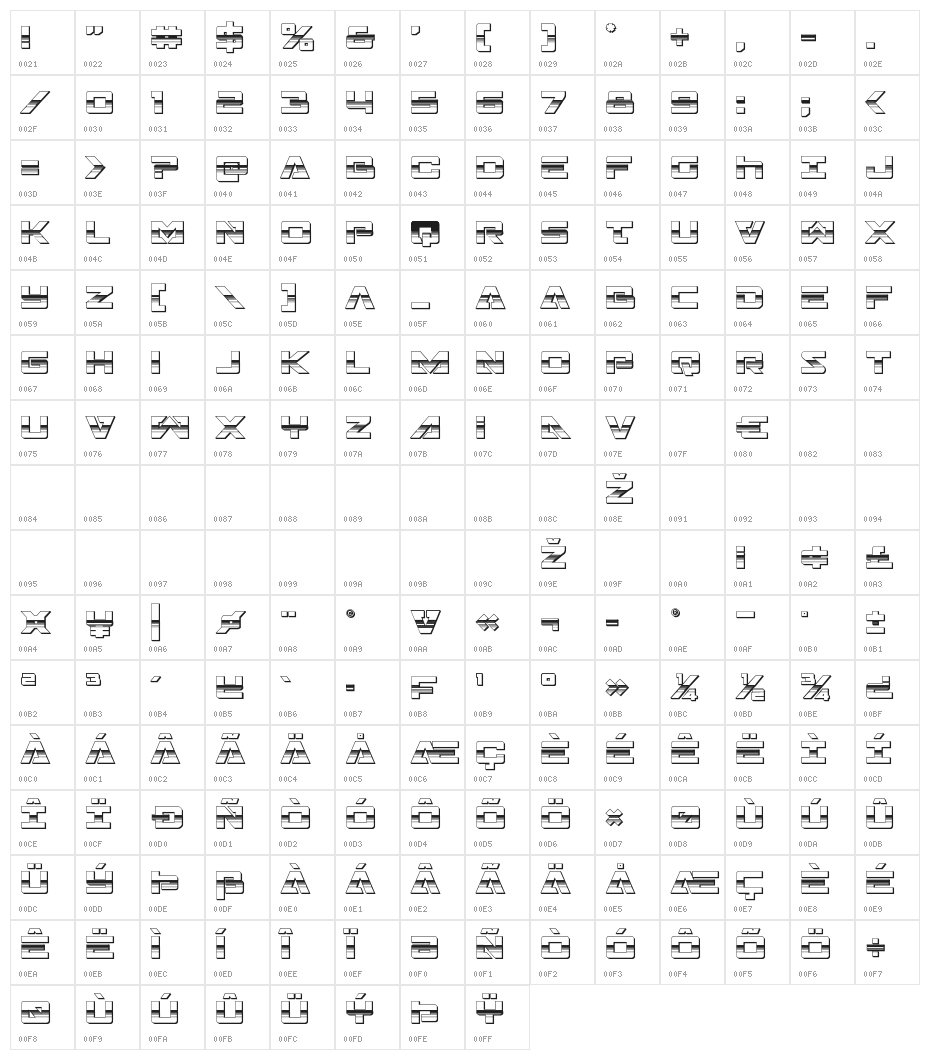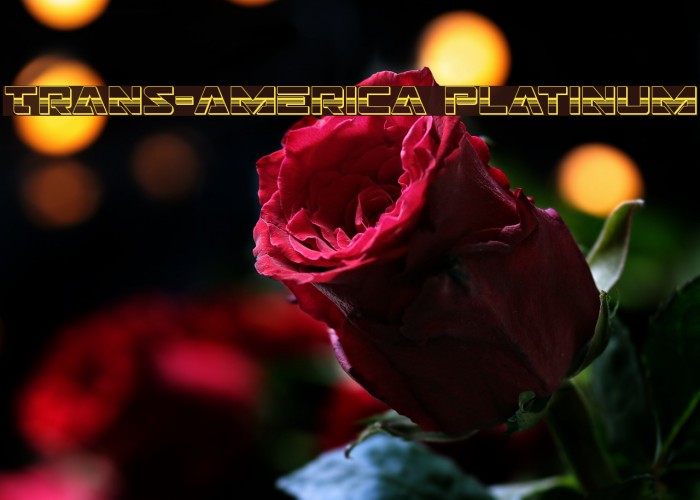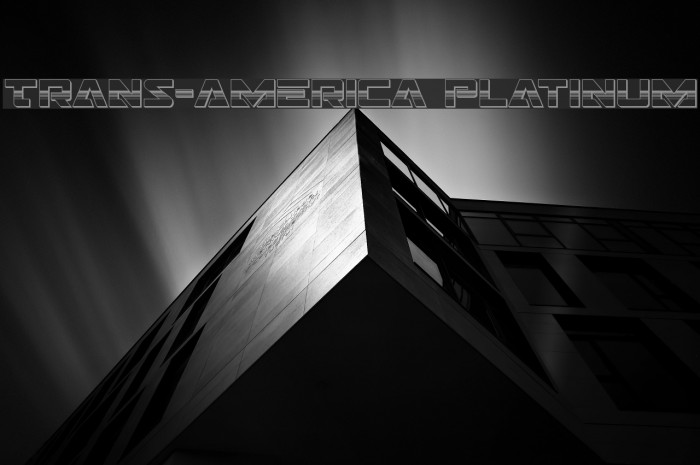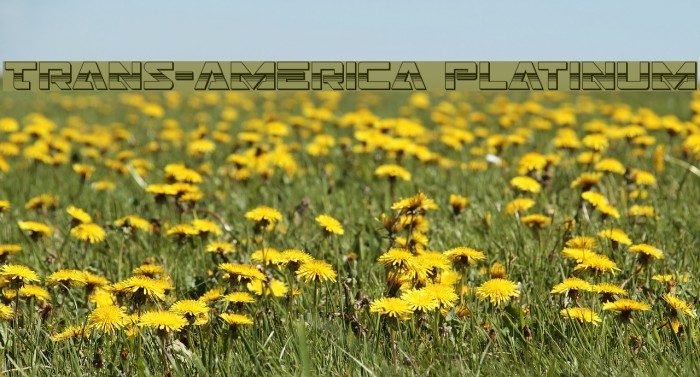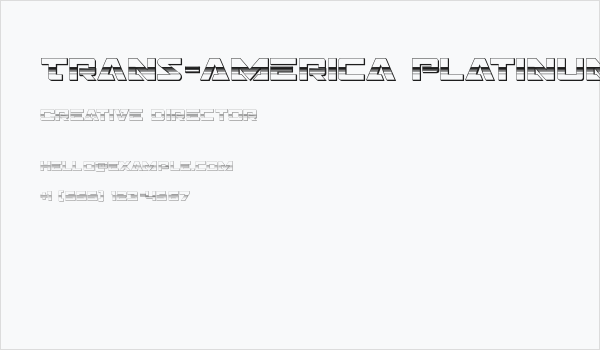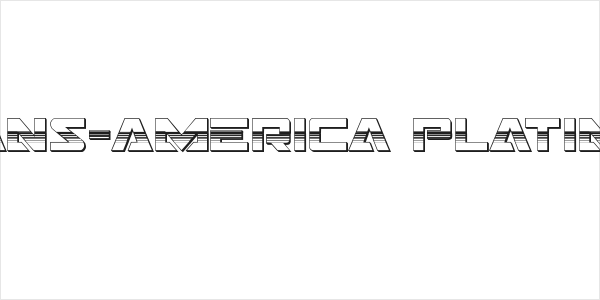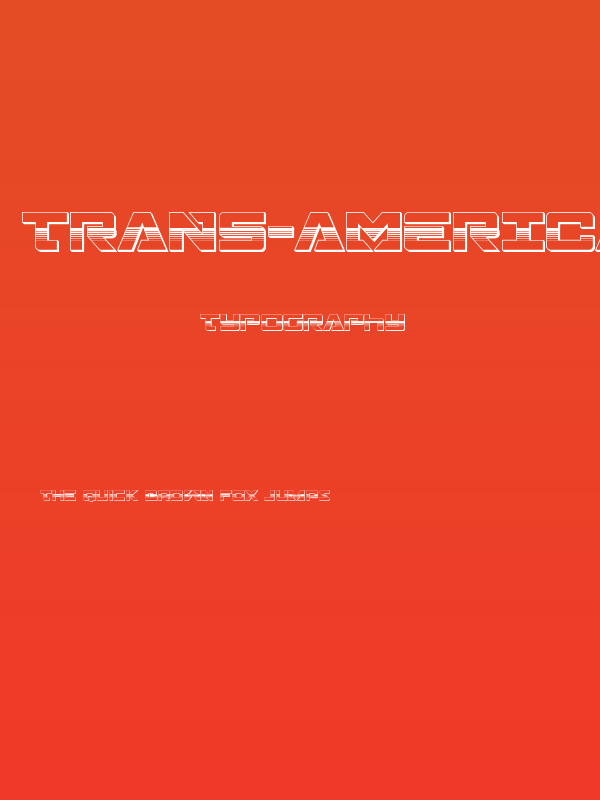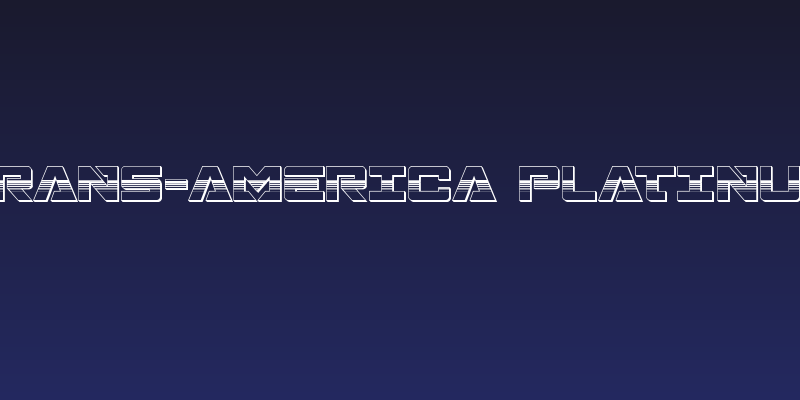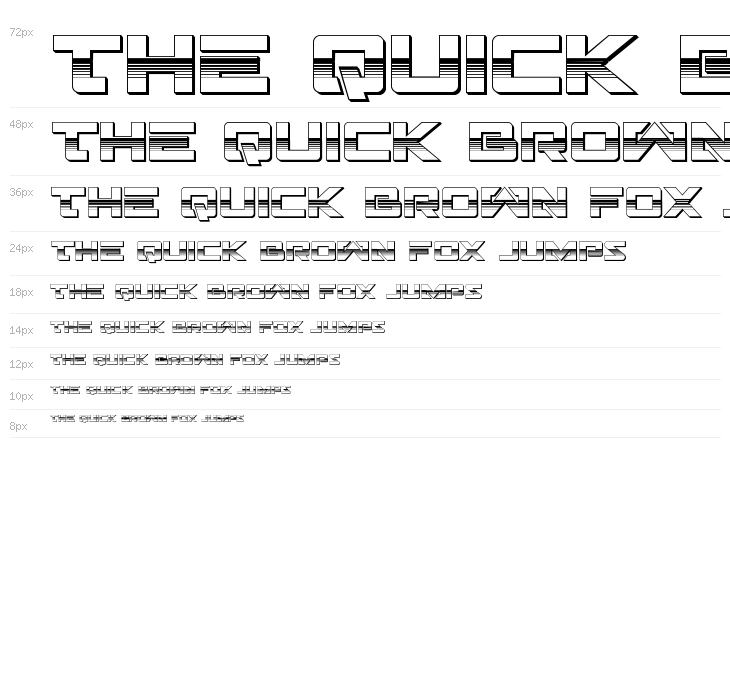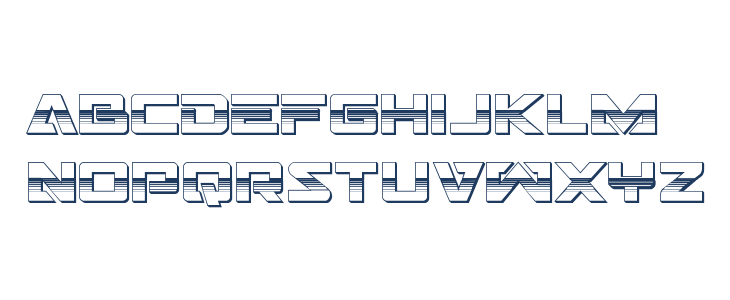
Trans-America Platinum Font
Trans-America Platinum Description
This font features a bold and futuristic design with a distinct three-dimensional effect. Each character is constructed with parallel lines that create a sense of depth and movement. The geometric shapes are sharp and angular, giving it a modern and edgy appearance. The uppercase and lowercase letters maintain a consistent style, while the numerals and special characters complement the overall aesthetic. The font's unique structure makes it stand out, ideal for projects that require a strong visual impact.
| Proposed Projects | Ideal for sci-fi themed projects, video game titles, futuristic branding, and tech-related logos. |